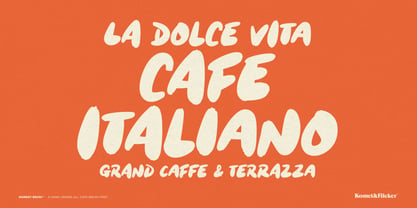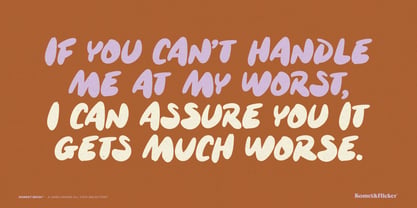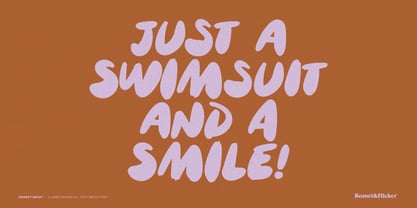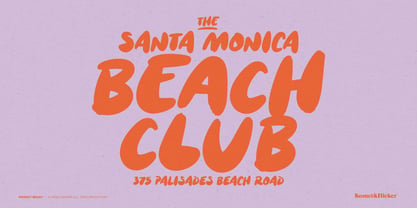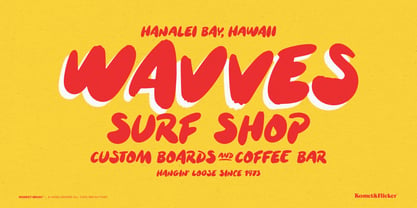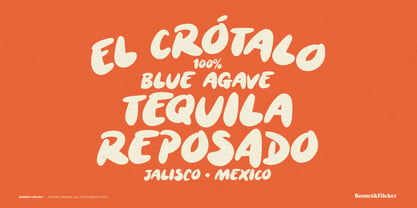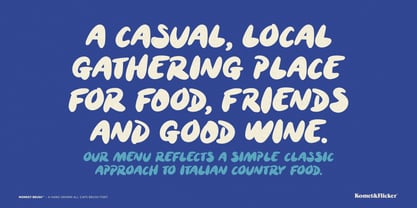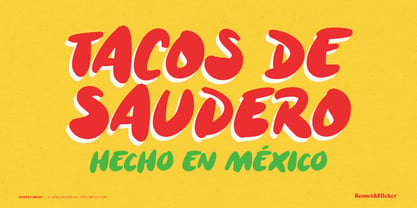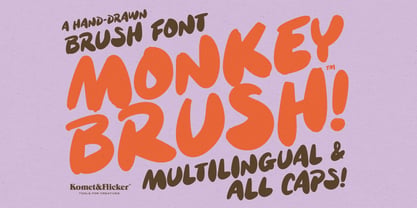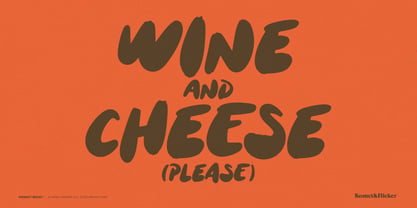
Monkey Brush
Say hello to Monkey Brush, a hand-drawn brush script font with a casual, playful attitude and tons of personality. Inspired by spontaneous strokes and free-spirited lettering, Monkey Brush brings a bold, fun-loving energy to your designs.
Each letter is crafted with natural brush textures, giving your text an authentic, handmade feel. With its loose, casual strokes and playful vibe, this font is perfect for projects that need a fresh, hand-crafted look.
THIS FONT FEATURES
Hand-Drawn Style: Each character is carefully designed with free-flowing brush strokes for a natural, authentic appearance.
Two Character Versions: Though this is an all caps font, each upper and lowercase letter is different allowing you to mix and match characters for more natural looking text.
Multilingual Support: Speak to a global audience with full multilingual character support, ensuring your designs are versatile and accessible.
20 Custom Connecting Words: Included in the font is a unique set of 20 hand-crafted connecting words (e.g., “and”, “from”, “with”, etc.) that give your text a seamless, flowing look.
THIS FONT INCLUDES
• Full A-Z uppercase basic latin characters
• Select European specific characters
• Numbers, punctuation, and select symbols
• Pre-made common fractions
• Set of 20 custom connecting word glyphs